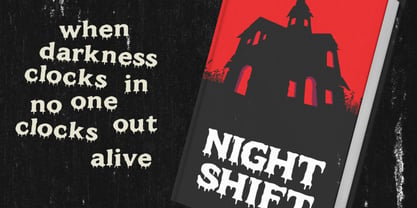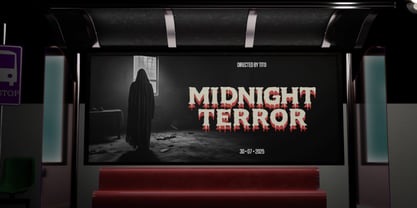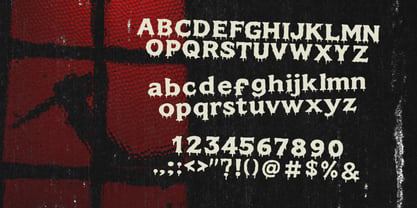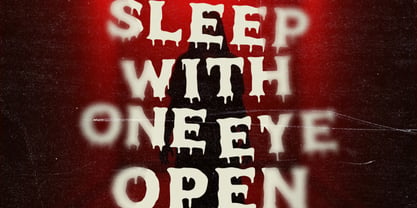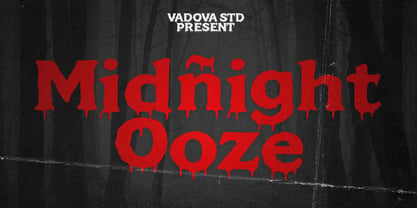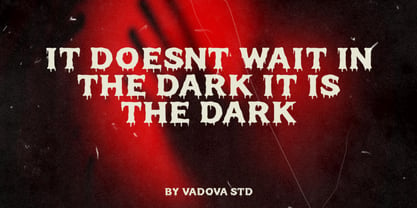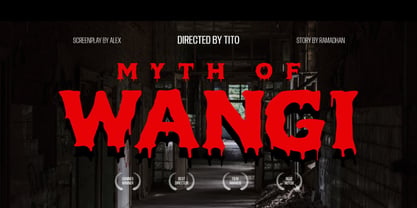
Midnight Ooze
by Vadova Std
Midnight Ooze is a creepy horror display font designed to capture the eerie atmosphere of classic horror movies and dark Halloween aesthetics. The typeface features dripping letterforms and rough organic edges that resemble melting wax, slime, or blood, creating a chilling and dramatic visual effect. Midnight Ooze is perfect for horror-themed design projects that require dramatic and spooky typography. It works especially well for Halloween posters, horror movie titles, haunted house promotions, spooky event graphics, gaming artwork, dark branding, and thriller-themed marketing materials.